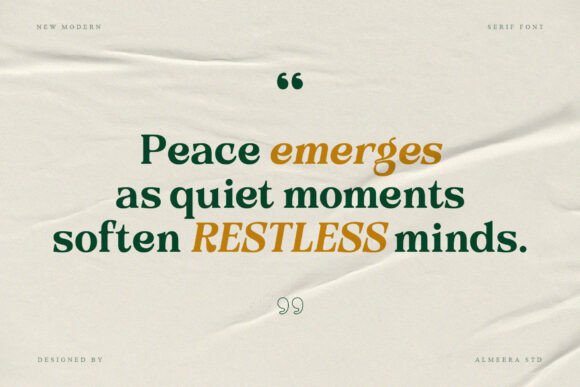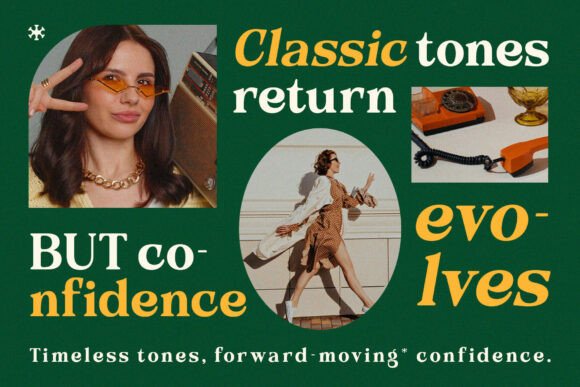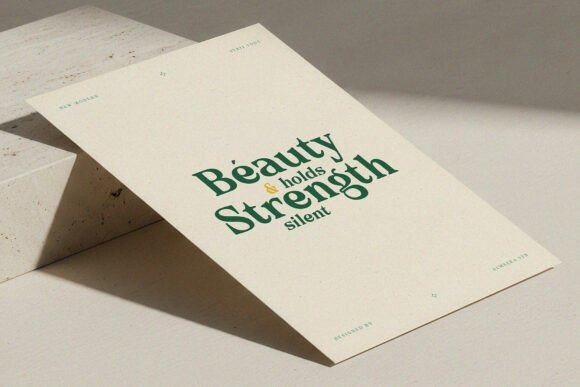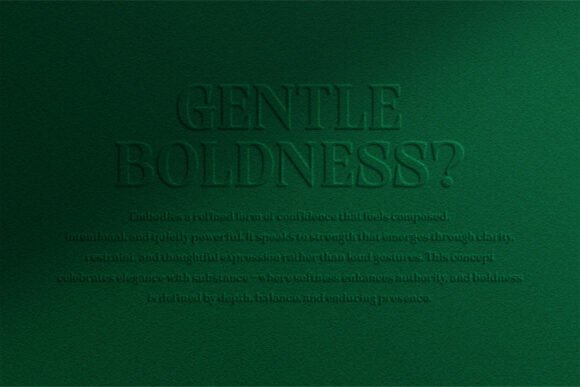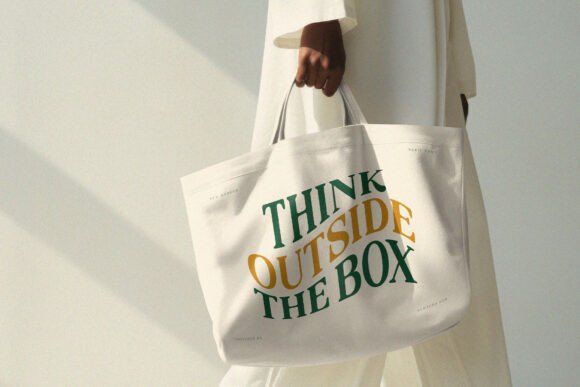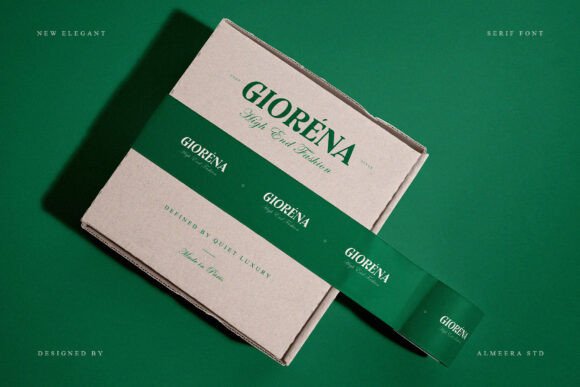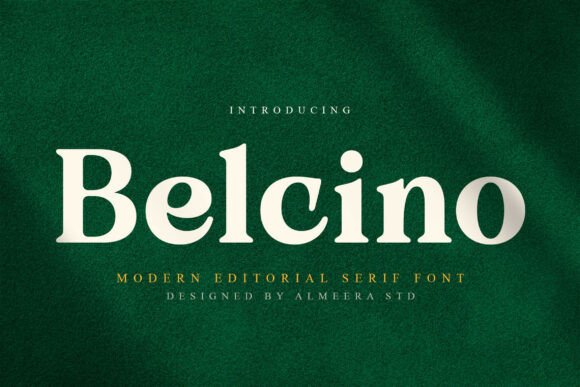
Introducing Belcino Font: Elevate Your Editorial Design with Sophistication and Elegance
In the world of typography, a font can make or break the visual identity of a project. For designers and crafters seeking to infuse their editorial compositions, branding projects, and creative headlines with a touch of sophistication, rhythm, and narrative strength, Belcino Font is an exceptional choice. This modern editorial serif font is meticulously crafted to deliver a perfect blend of expressiveness and professionalism, making it an ideal solution for design systems that demand character and elegance.
The Essence of Belcino Font
Belcino Font stands out with its carefully shaped letterforms, characterized by refined contrast and smooth transitions. This thoughtful design approach results in a serif typeface that not only feels expressive but also highly professional. The refined contrast between thick and thin strokes adds a layer of visual interest, while the smooth transitions between strokes ensure a harmonious and elegant appearance.
Key Features of Belcino Font
Belcino Font comes with a range of features that make it exceptionally versatile and user-friendly. Some of the key features include:
• Numbers, Fractions: Belcino Font includes a comprehensive set of numbers and fractions, allowing for precise and creative numerical design.
• Punctuation and Symbols: A wide range of punctuation marks and symbols are included, providing designers with the flexibility to create detailed and nuanced designs.
• Alternates: The font features alternate characters, enabling designers to introduce variation and uniqueness into their typography.
• Ligatures: Belcino Font supports ligatures, which help to create a more natural and fluid reading experience by combining specific letter pairs.
• Multilingual Support: With support for multiple languages, Belcino Font is an excellent choice for global brands and projects with diverse linguistic needs.
Applications of Belcino Font
Belcino Font’s versatile design makes it suitable for a variety of applications, including:
• Editorial Compositions: Its elegant and refined appearance makes it perfect for use in magazines, newspapers, and online publications.
• Branding Projects: Belcino Font’s sophisticated and professional feel makes it an excellent choice for logos, wordmarks, and brand guidelines.
• Creative Headlines: The font’s expressive yet professional nature makes it ideal for headlines and titles that require a touch of elegance and character.
• Design Systems: Belcino Font’s balanced spacing and multilingual support make it a reliable choice for design systems that require a consistent and elegant typographic voice.
Why Choose Belcino Font?
Belcino Font offers a unique combination of expressiveness, professionalism, and versatility, making it an attractive choice for designers and crafters. Here are some reasons why you should consider Belcino Font for your next project:
• Visual Depth: The font’s refined contrast and smooth transitions create a visually appealing and engaging reading experience.
• Functional Reliability: With its balanced spacing and multilingual support, Belcino Font delivers both aesthetic appeal and practical functionality.
• Elegance and Character: Belcino Font brings a touch of sophistication and elegance to any design project, making it perfect for those seeking to create a lasting impression.
In conclusion, Belcino Font is a modern editorial serif font that offers a perfect blend of sophistication, rhythm, and narrative strength. Its carefully crafted letterforms, refined contrast, and smooth transitions make it an excellent choice for designers and crafters seeking to elevate their editorial compositions, branding projects, and creative headlines. With its range of features, versatility, and functional reliability, Belcino Font is an exceptional addition to any design project.